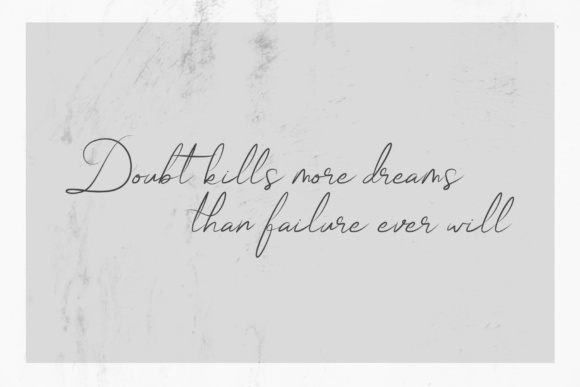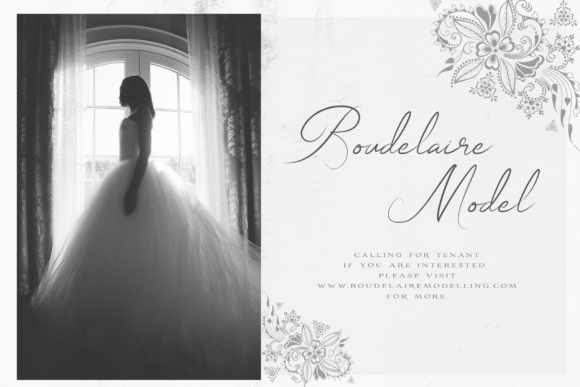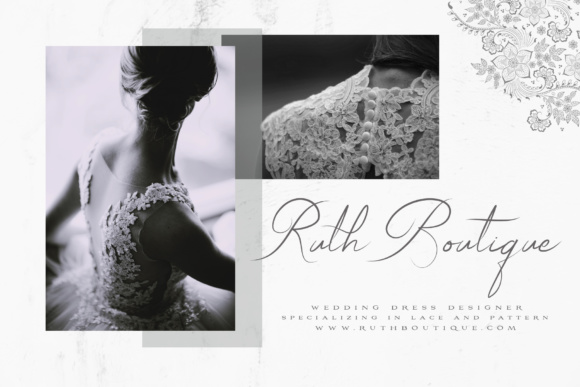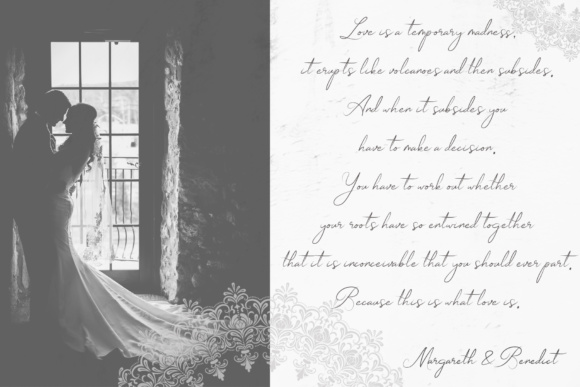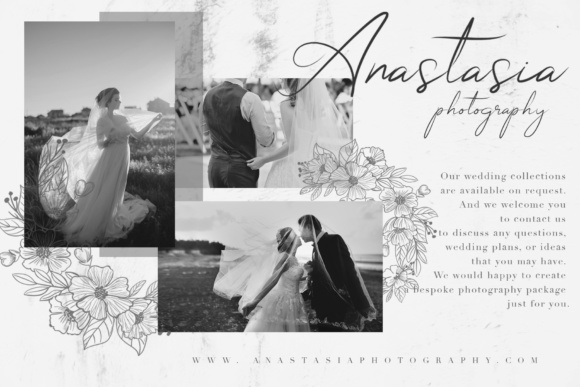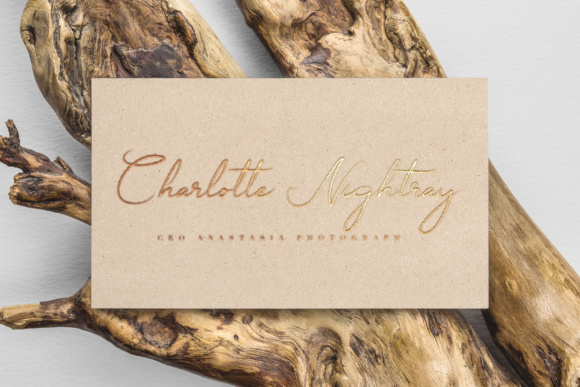
The Elegance of Boudelaire Font: A Designer’s Delight
I still remember the time I was working on a wedding invitation project, and my client asked for a font that exuded elegance and sophistication. I scoured the internet, tried out countless fonts, but nothing seemed to fit the bill. That was until I stumbled upon Boudelaire Font. This stunningly elegant feminine script font has since become one of my go-to choices for special event designs, and I’m excited to share its beauty with you.
An Honest Review of Boudelaire Font
• ✨ Elegant and refined design, perfect for high-end projects
• ✅ Extensive OpenType features, including glyphs and stylistic alternates
• 💫 Beautifully crafted for monograms and logotypes
• 🎨 Highly versatile, suitable for various design applications
While Boudelaire Font is an exceptional font, there are a few minor quirks to be aware of:
• ⚠️ Some users may find the font’s elegance and refinement limiting for more casual or playful projects
• 🤔 The font’s intricate design may not render well at very small sizes
The Backstory of Boudelaire Font
Boudelaire Font was inspired by the works of French poet Charles Baudelaire, known for his elegant and refined writing style. The font’s creator aimed to capture the essence of Baudelaire’s poetry in a typographic form, resulting in a font that exudes sophistication and elegance.
What is Boudelaire Font best suited for? Boudelaire Font is ideal for special event designs, such as wedding invitations, luxury branding, and high-end advertising.
Is Boudelaire Font suitable for body text? While Boudelaire Font is beautiful, it’s not recommended for body text due to its elegant and refined design. It’s better suited for headlines, titles, and short text passages.